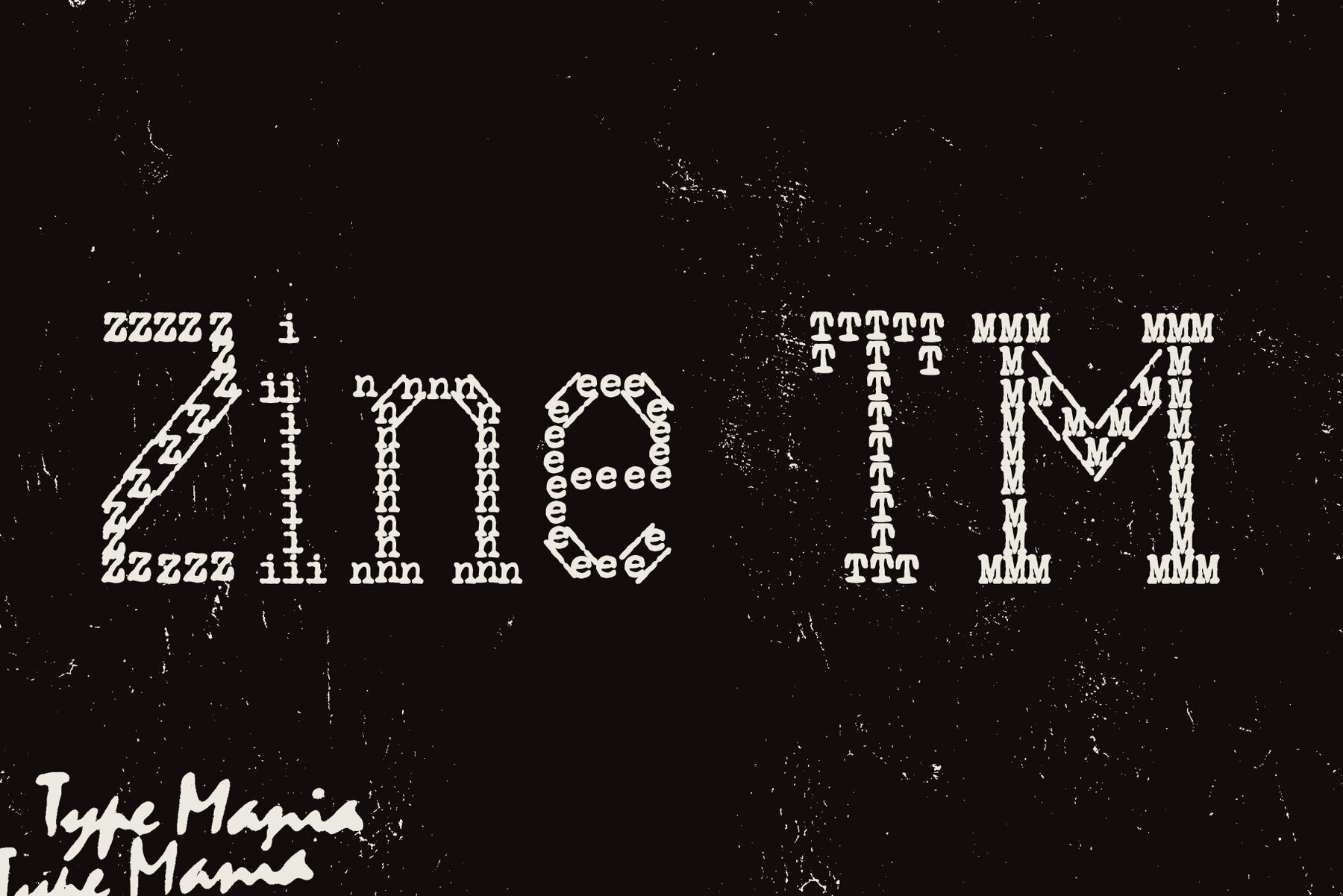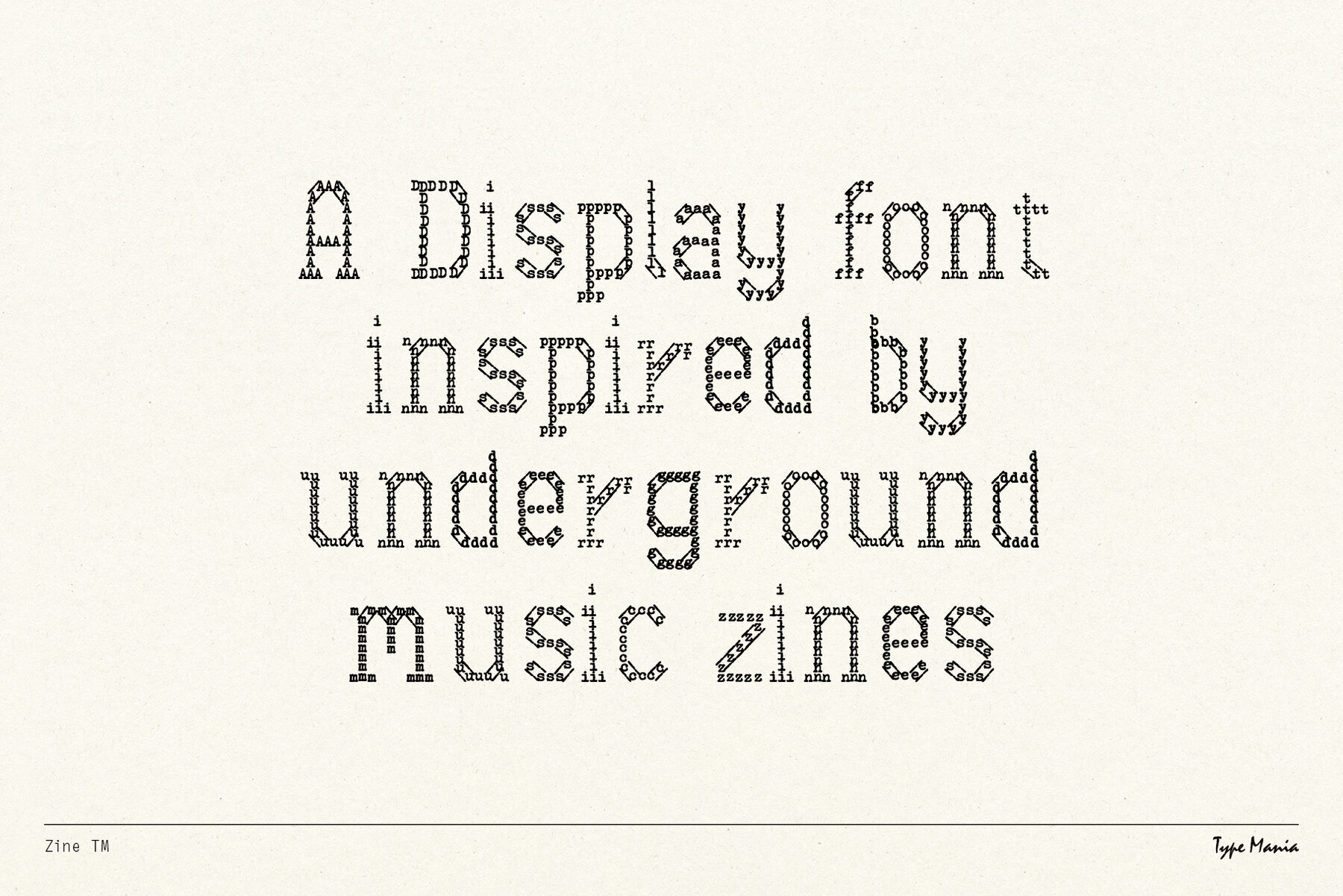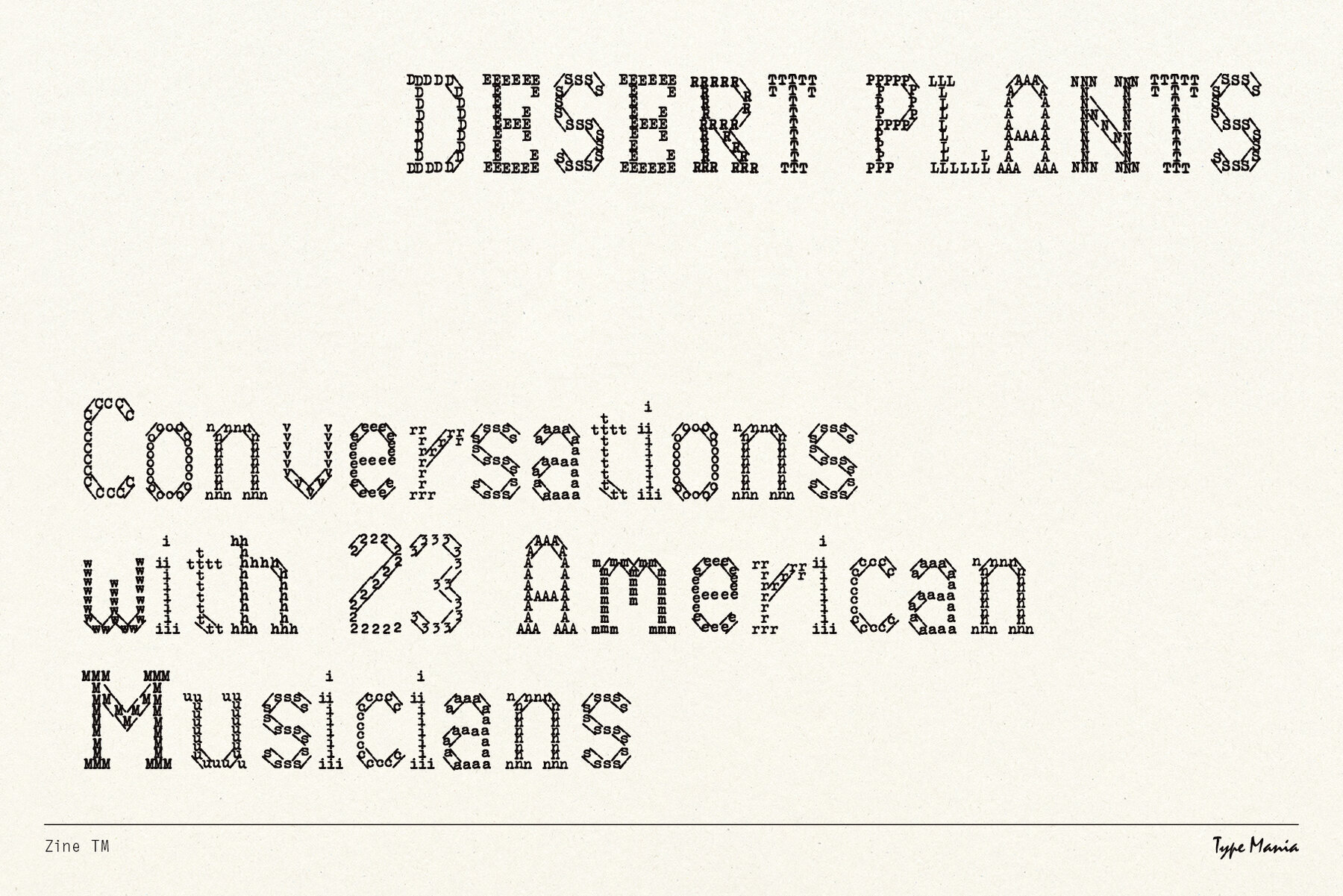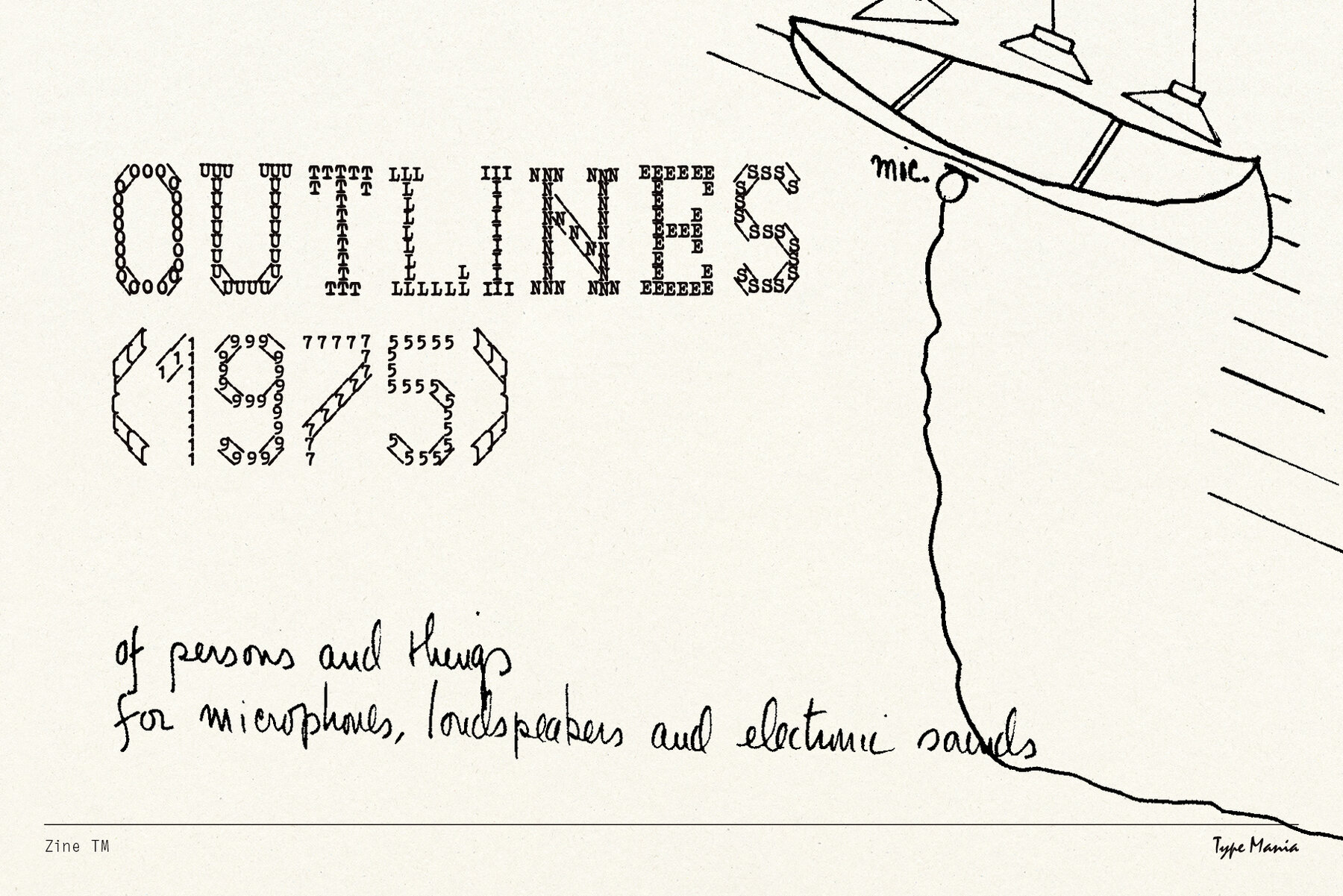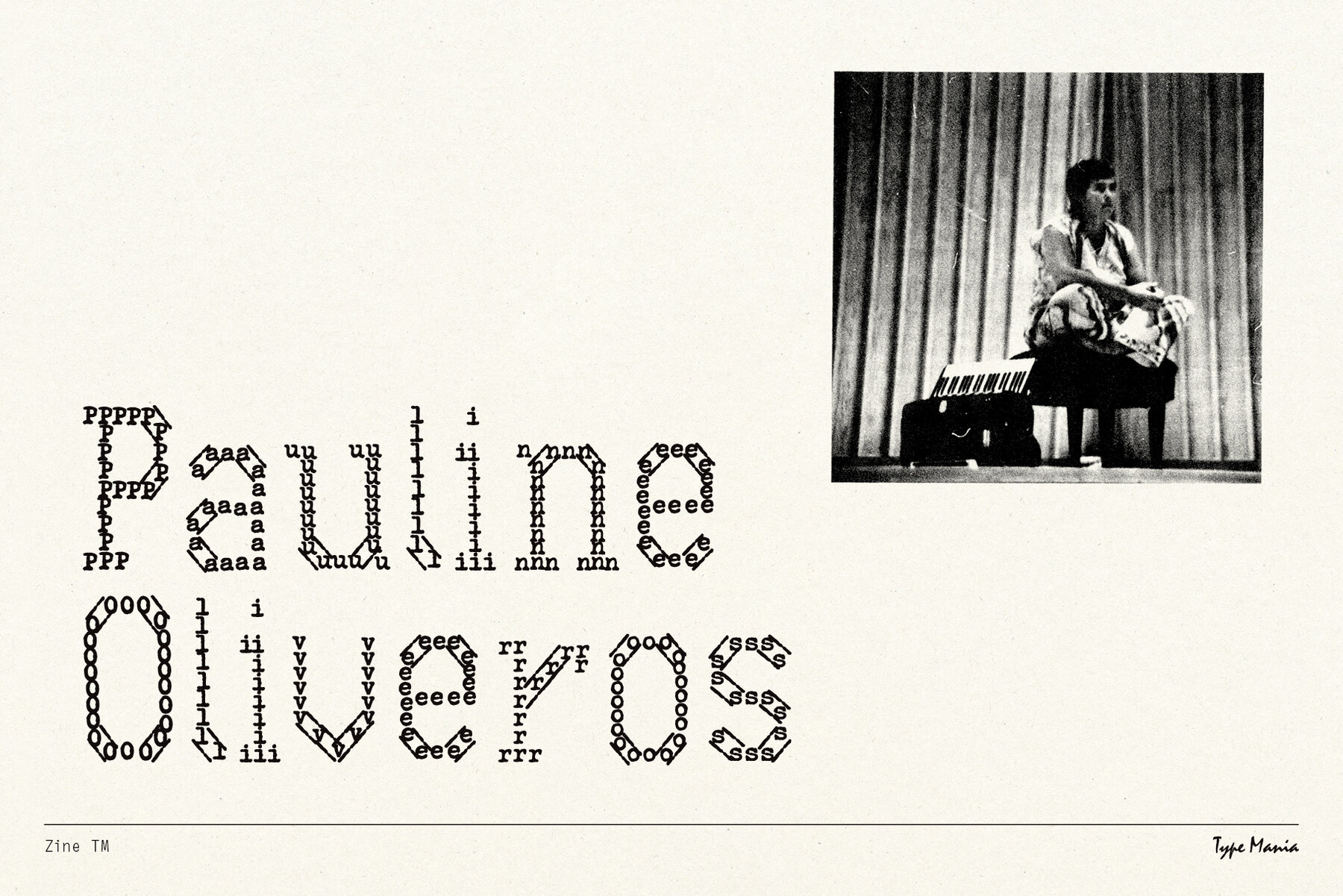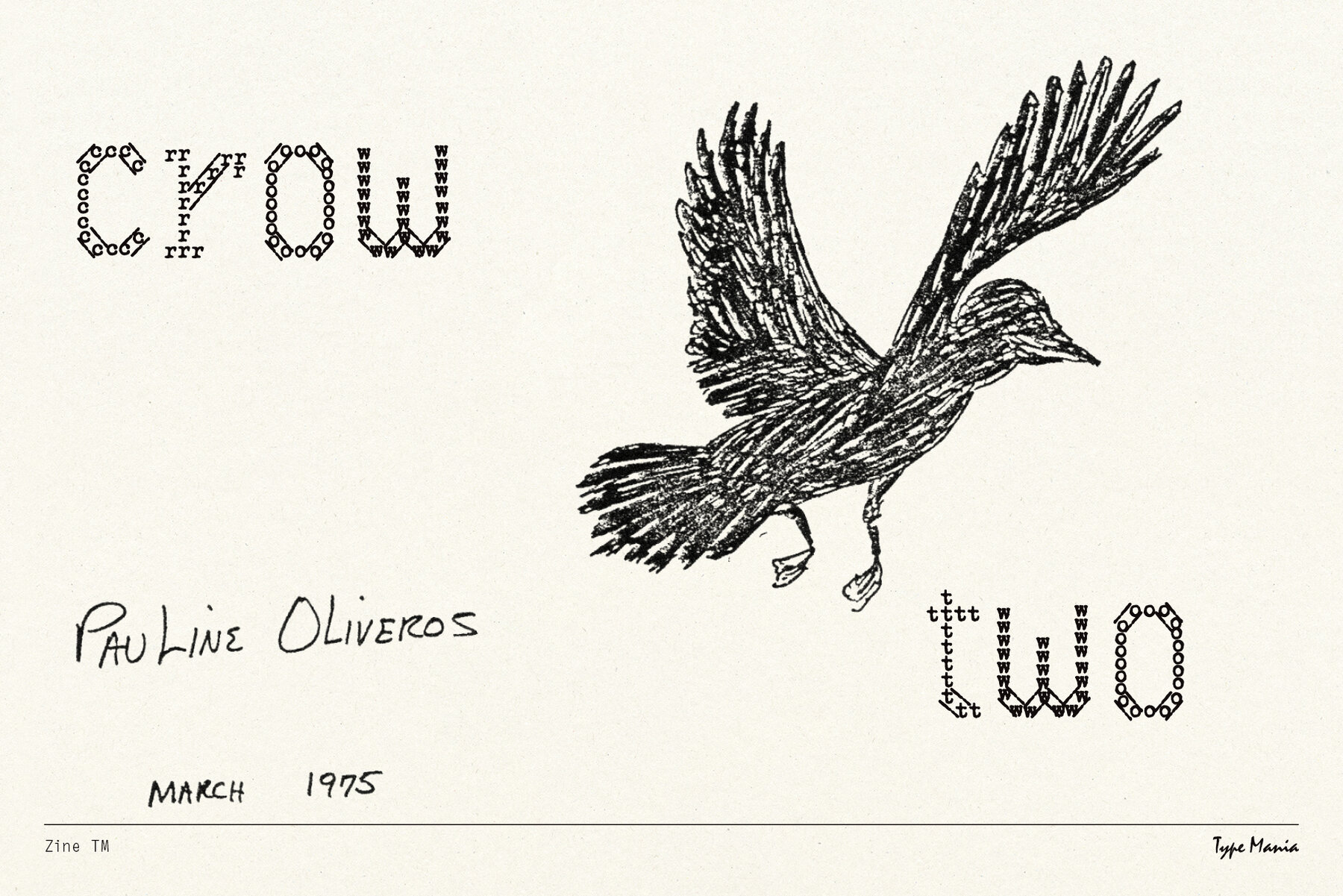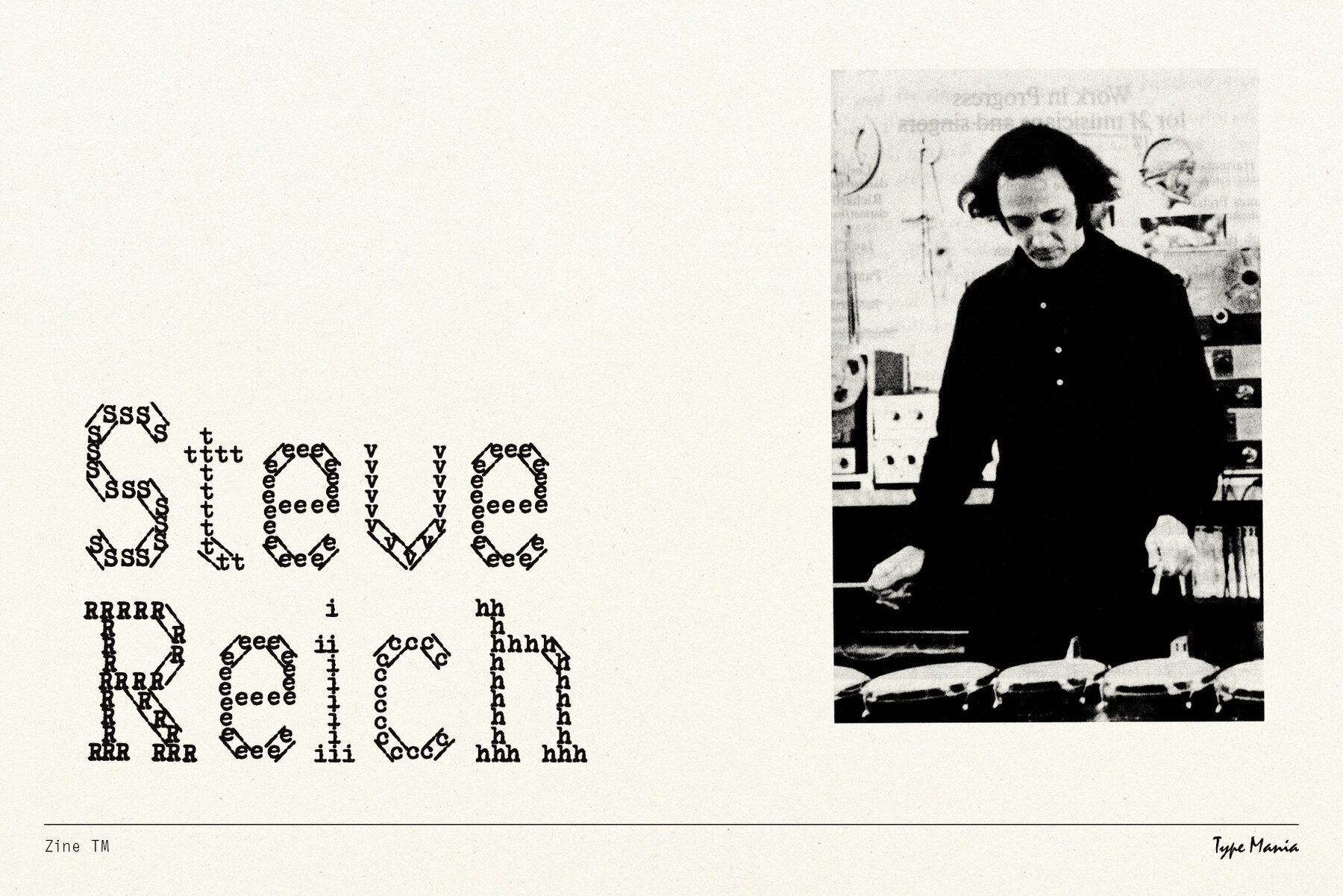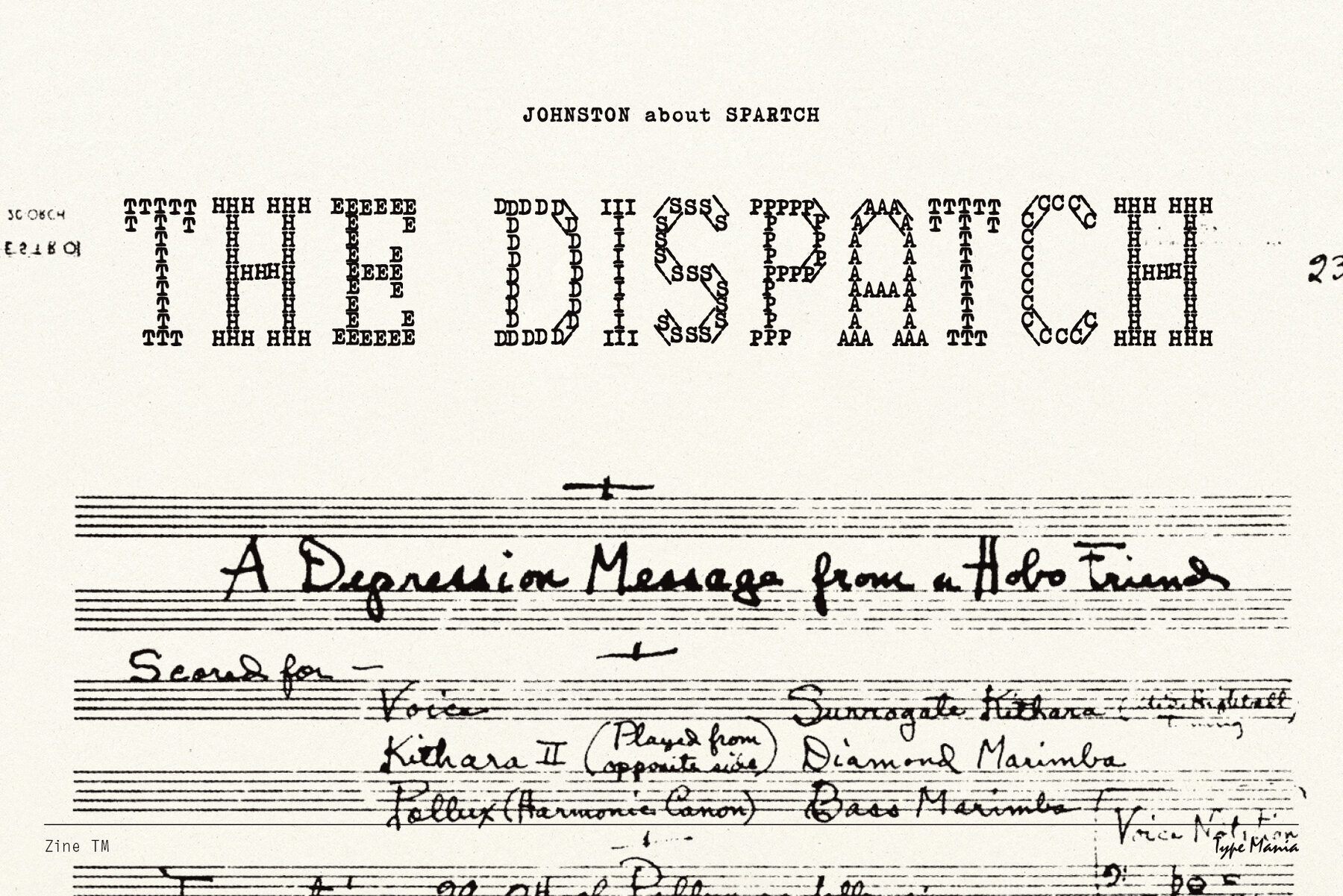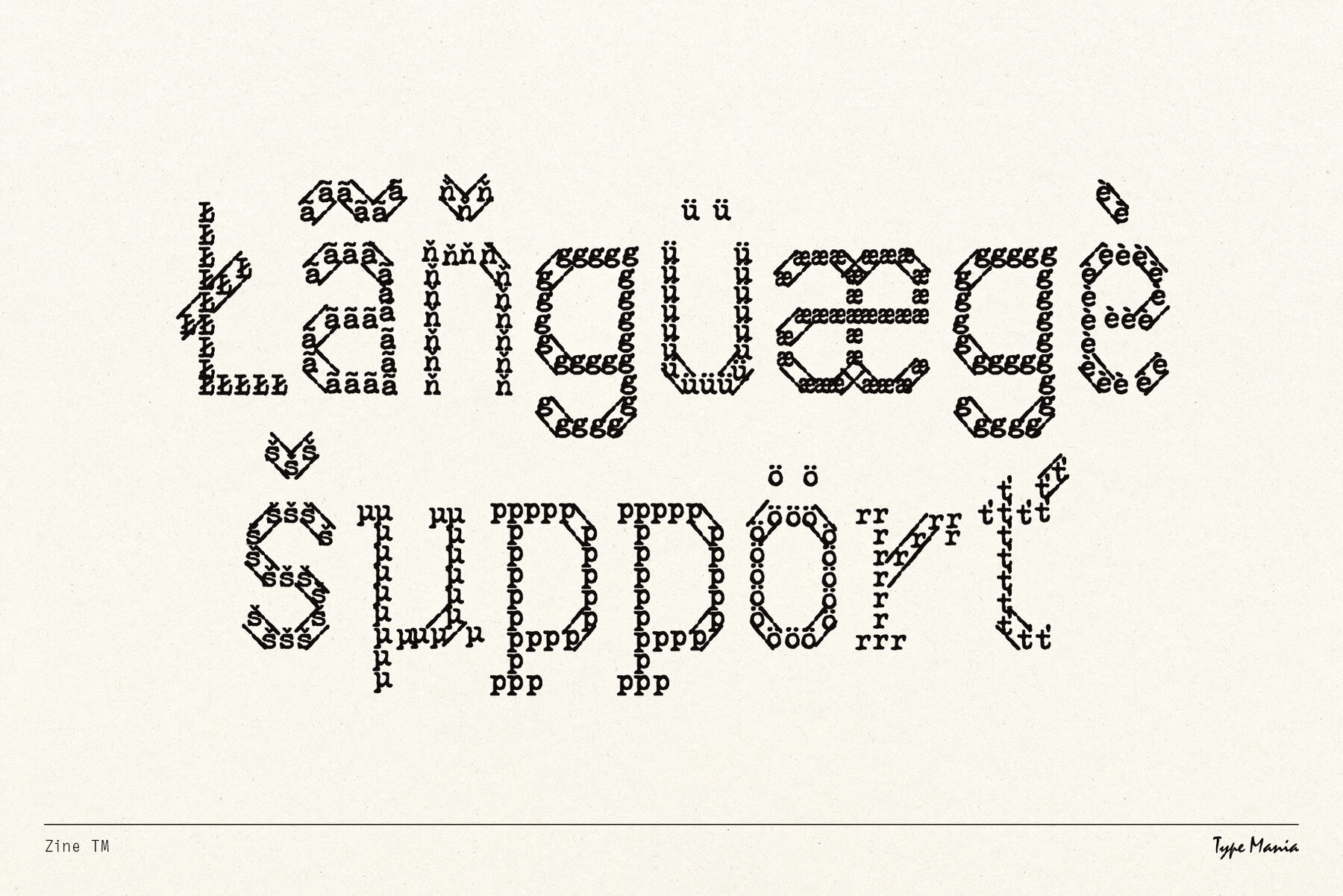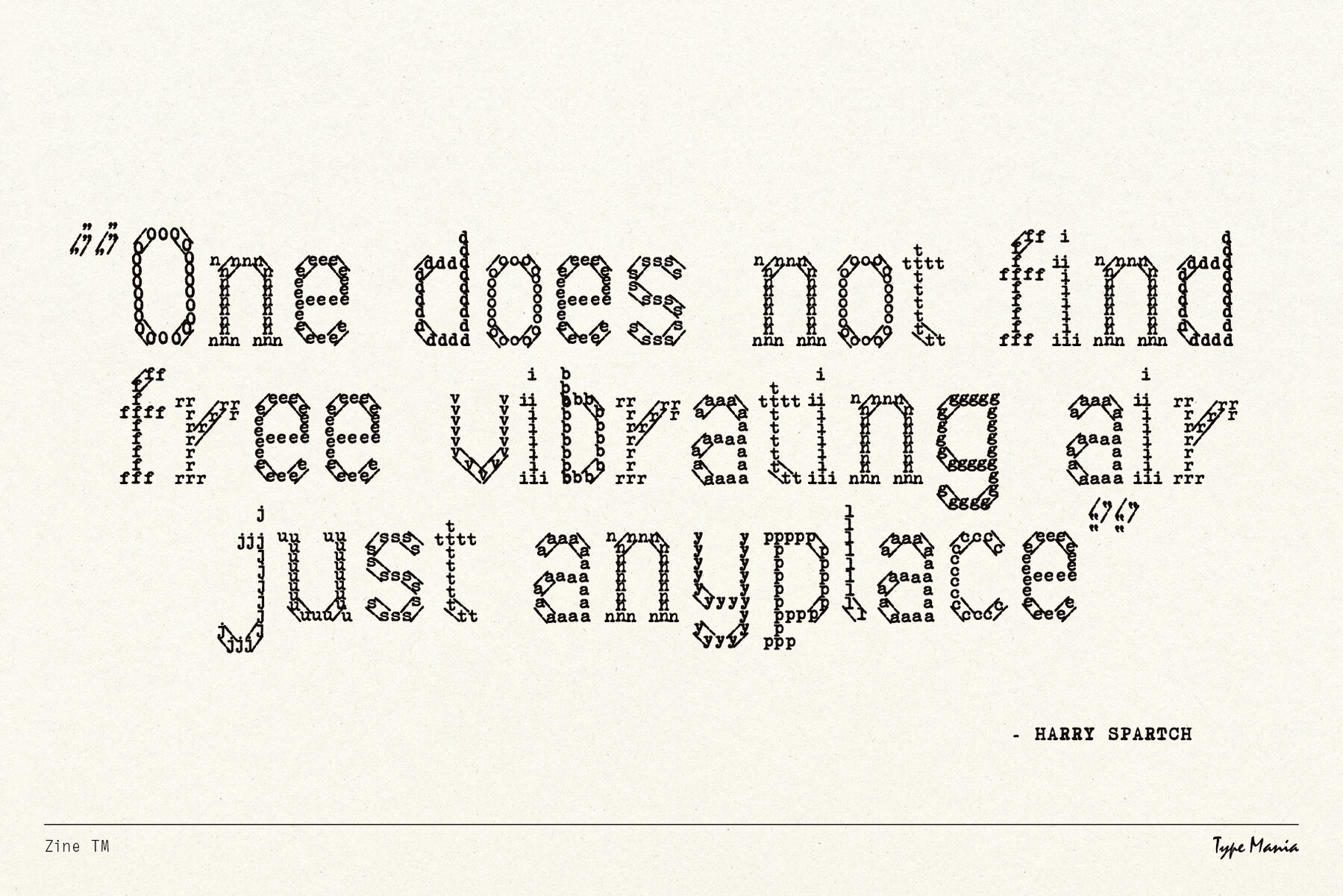
Zine TM Font
Zine TM Regular
Step back in time with our typewriter font with a twist. Embrace the past, celebrate the present, and make your mark with Zine TM. Zip includes Graphic Design is Easy (with Type Mania)®